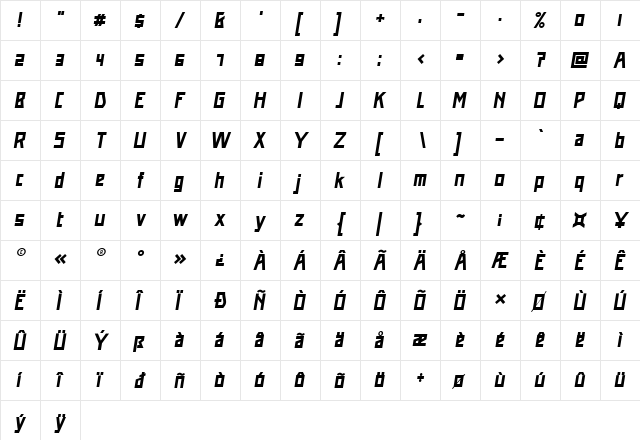
Addiction Italic
Design Context for Addiction Typeface
Addiction offers clean, dependable letterforms without strong stylistic allegiance, making it a practical choice for designers who need flexibility. The dynamic lean of this cut emphasises speed and emphasis in any layout.